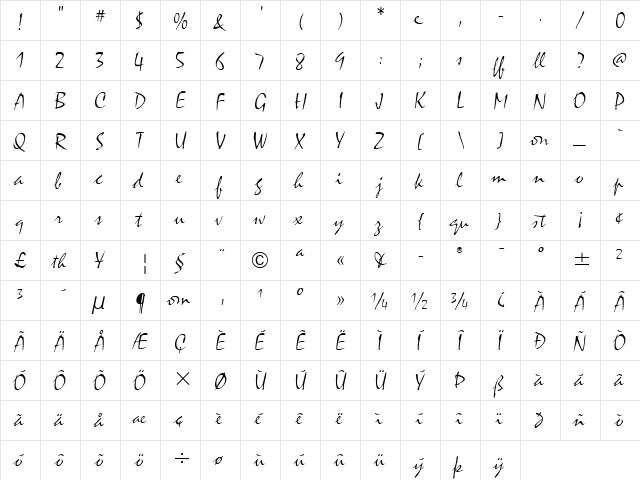
Mistral ITC Light
Design Context for Mistral ITC Typeface
Mistral ITC is a composed and adaptable typeface that performs quietly and consistently across a wide range of design contexts. The delicate stroke weight brings airiness and refinement to layouts.